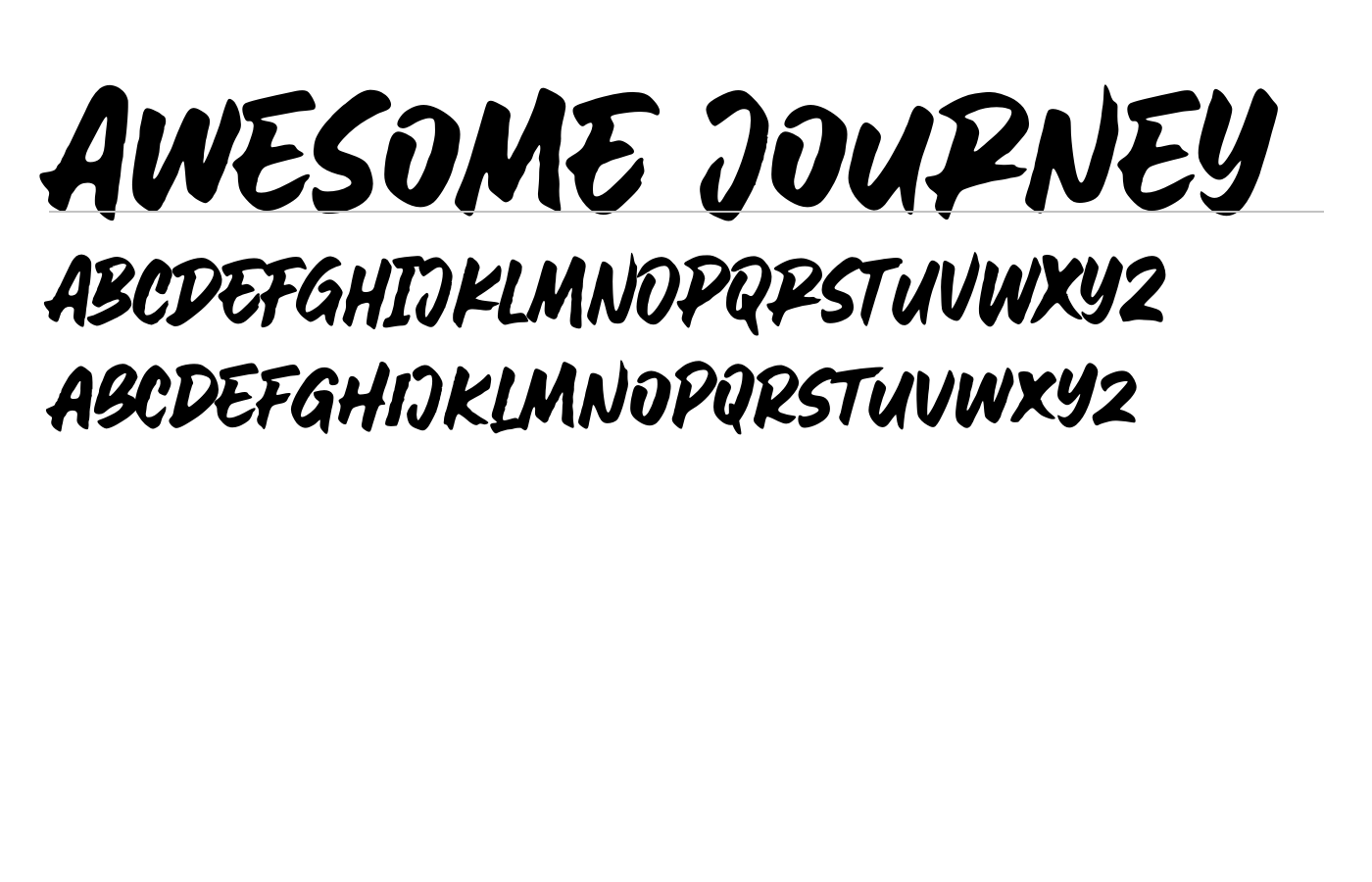
The AweSomE JouRneY font is a bold, energetic script typeface with a casual, hand-painted feel. Its thick, dynamic strokes and slightly irregular letterforms create a lively and adventurous vibe, perfect for projects that want to convey creativity and spontaneity. This font works great for logos, posters, and branding that aim to stand out with a fun yet strong personality.
AweSomE JouRneY Font
About AweSomE JouRneY Font
| Font family | AweSomE JouRneY Font |
| Designer | Rangga Singgih Subekti |